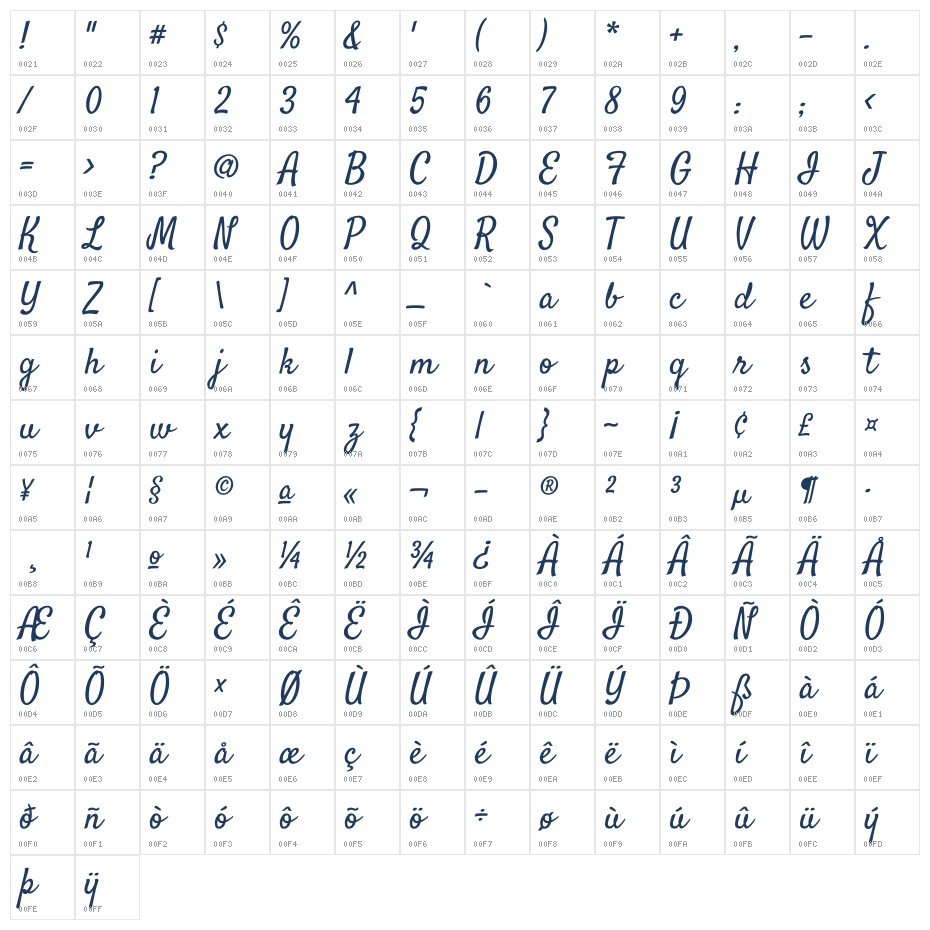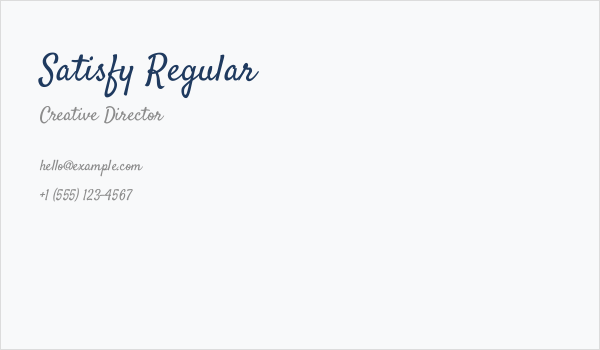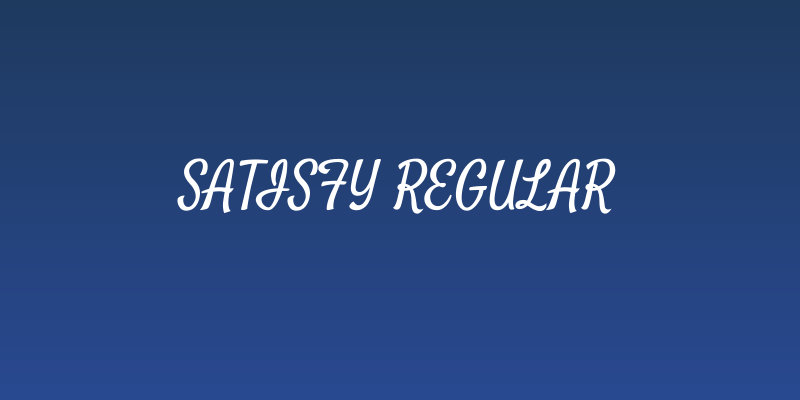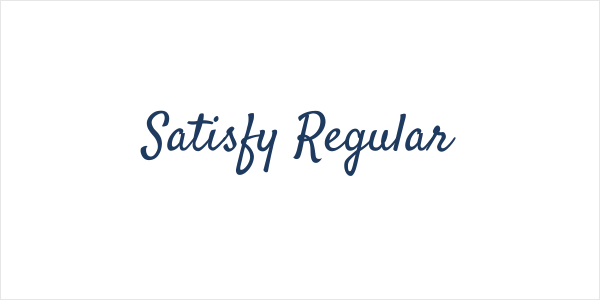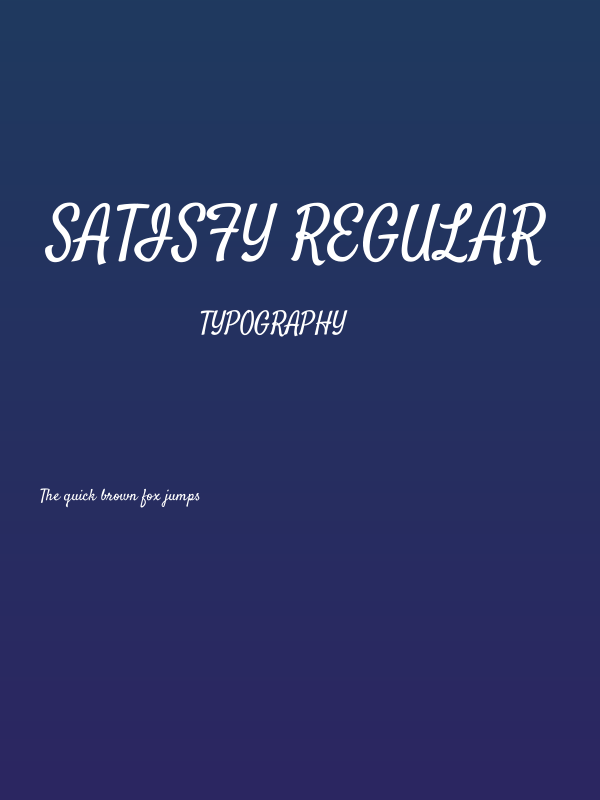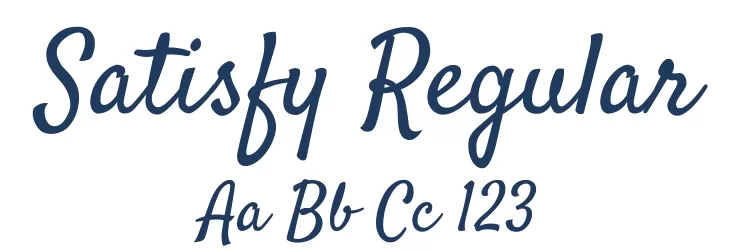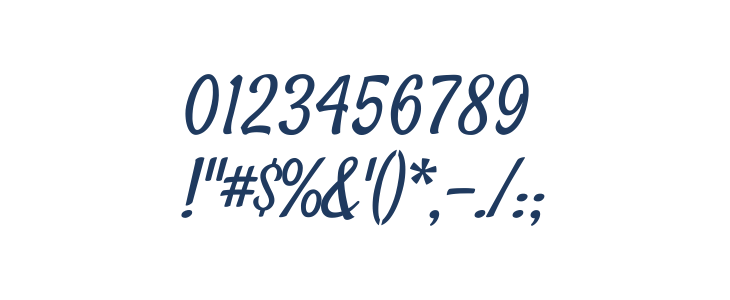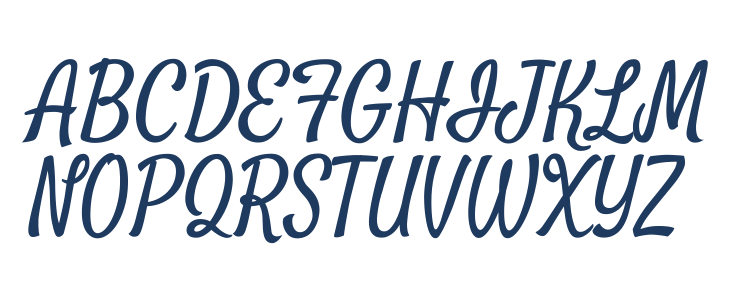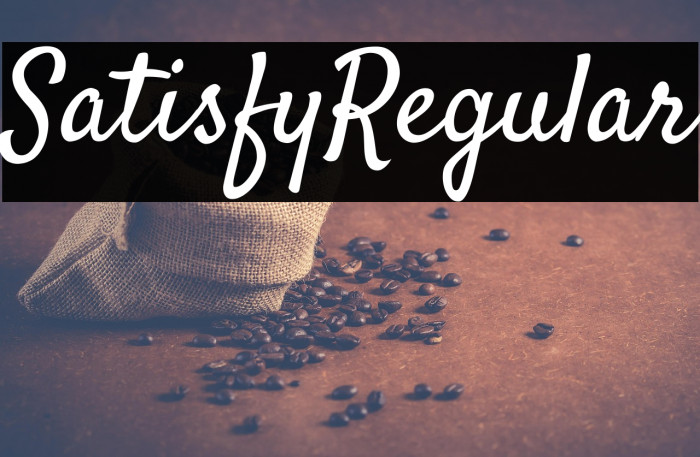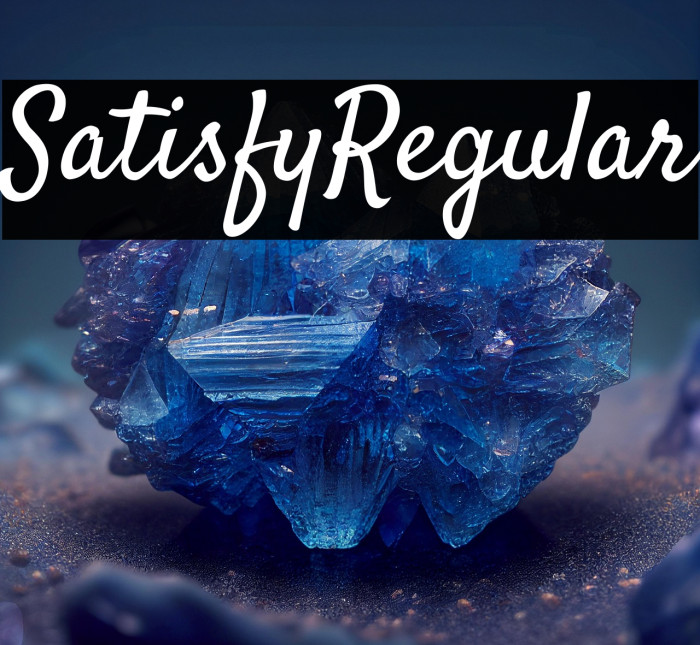
Satisfy Regular Font
Satisfy Regular Description
A cursive, handwritten style font with a smooth, flowing appearance, characterized by slightly slanted characters and rounded edges.
| Overall Style | Casual, Elegant, Handwritten |
| Use Case | Invitations, greeting cards, branding, logos, personal projects. |